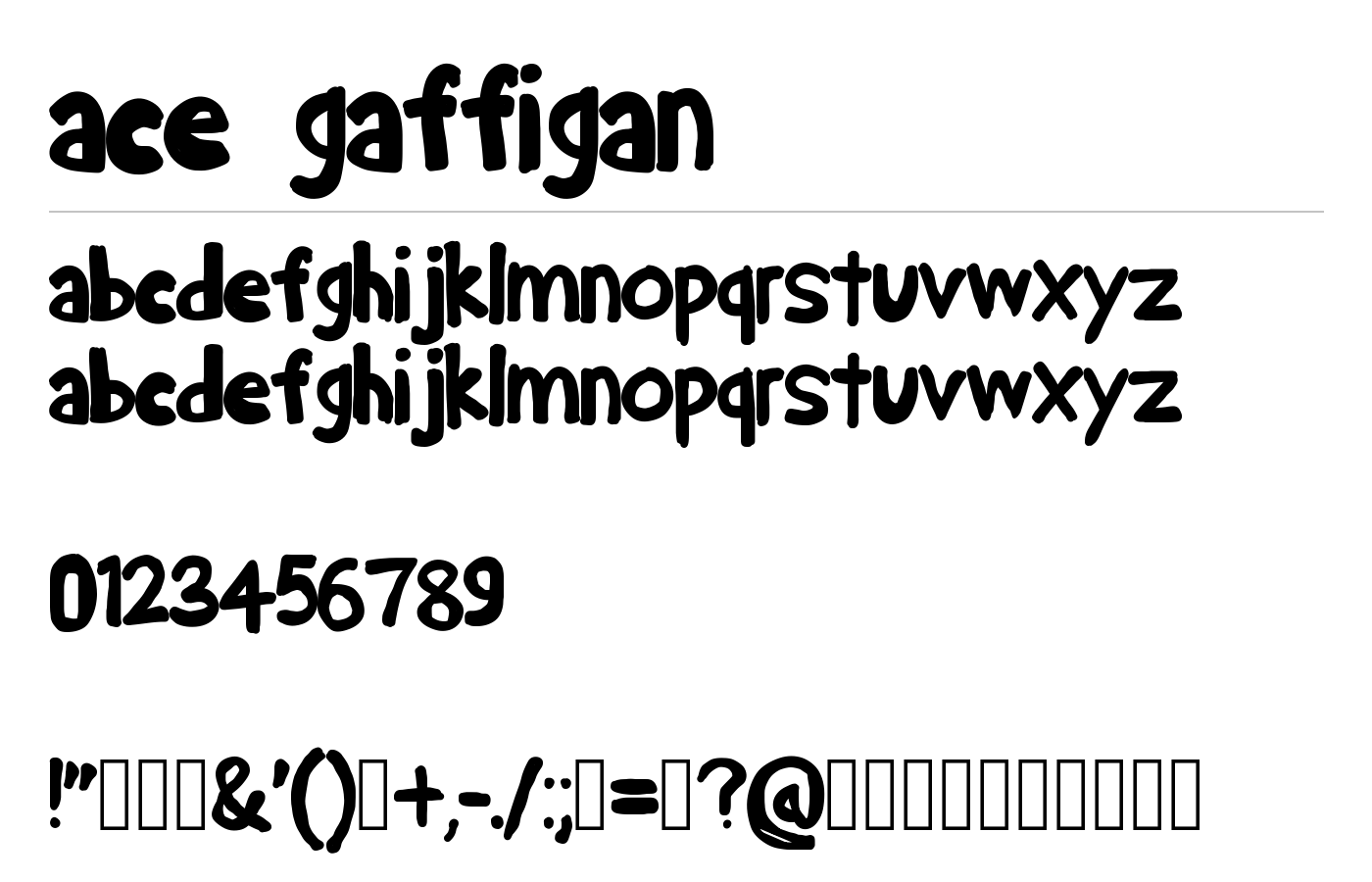
Ace Gaffigan is a playful and quirky sans serif font with a hand-drawn feel, featuring bold strokes and slightly irregular shapes that give it a friendly, informal character. Its rounded edges and unique letterforms make it ideal for creative projects, children's books, or casual branding where a fun and approachable vibe is desired. The font works well in headlines and logos, adding personality and warmth without sacrificing readability.
ace gaffigan Font
About ace gaffigan Font